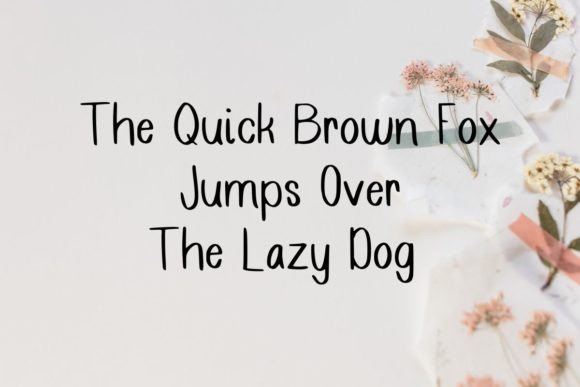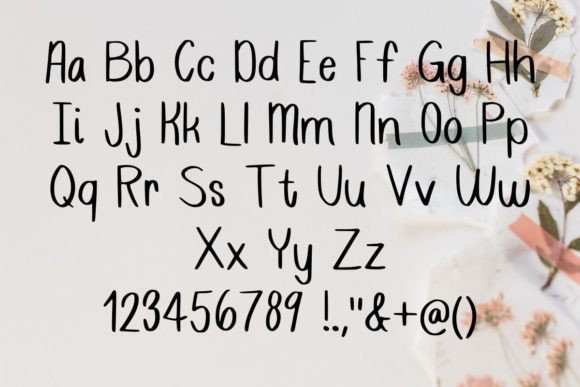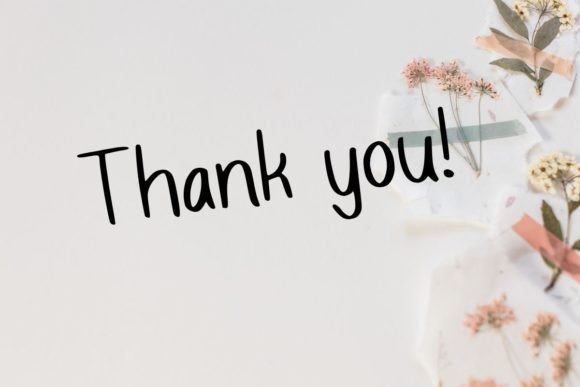
Have you ever stared at a blank canvas or screen, searching for the perfect font to bring your idea to life? It’s that moment when your creativity is bursting, but the right words just won’t come together. Well, say hello to a game-changer: the Humpity Bumpity Font.
This fun and quirky font is designed to add a touch of whimsy to your designs. With its playful humps and bumps, the Humpity Bumpity Font is the perfect choice for anyone looking to add some personality to their creative projects. Whether you’re a seasoned designer or just starting out, this font is sure to bring a smile to your face and make your work stand out from the crowd.
Humpity Bumpity Font Key Features
- Font Family: Humpity Bumpity is a sans-serif font family, designed to provide a unique and playful look for digital and print media.
- Character Set: Includes a wide range of characters, including Latin, Cyrillic, and Greek alphabets, as well as punctuation and special symbols.
- Font Size and Resolution: Designed to work well at font sizes ranging from 10px to 48px, with optimal results at 24px and 96 dpi resolution.
- Unique Characteristics: Distinctive bump-like shapes on letterforms, creating a visually appealing and attention-grabbing effect.
Humpity Bumpity Font Review
As a designer, I was initially drawn to Humpity Bumpity Font for its playful and whimsical feel. The font’s unique letterforms and quirky character combinations ✨ make it a great choice for projects that require a touch of personality.
Some of the font’s strengths include:
- Highly legible even at small sizes ✨
- Great for use in illustrations, graphics, and other visual content ✨
- Supports a wide range of languages, including many non-Latin scripts ✨
- Not suitable for formal or professional applications ⚠️
- Lack of bold and italic font weights ⚠️
- May not be suitable for projects requiring a high level of precision or technical detail ⚠️
Overall, Humpity Bumpity Font is a fun and creative option that’s perfect for projects where you want to add a touch of whimsy. While it may not be suitable for every application, it’s a great choice for designers looking to add some personality to their work.
Humpity Bumpity Font Practical Application Guide
The Humpity Bumpity Font is ideal for:
- Creativity and imagination-driven projects.
- Playful and whimsical designs.
- Children’s educational materials.
To get the most out of the Humpity Bumpity Font, try:
- Combining it with bold or italic styles for added emphasis.
- Using it in conjunction with other playful fonts for a unique look.
- Experimenting with different font sizes and colors
Alternatives to Humpity Bumpity Font
Cursive Script
Cursive Script is a classic, elegant font perfect for adding a touch of sophistication to wedding invitations, certificates, or formal letterheads. It is ideal for creating a sense of formality and tradition. Unlike Humpity Bumpity Font, which is playful and whimsical, Cursive Script is more refined and polished.
Playfair Display is an elegant, high-end font ideal for luxury branding, high-end fashion, or fine dining. It is perfect for creating a sense of luxury and sophistication. While Humpity Bumpity Font is fun and playful, Playfair Display is more formal and luxurious.
Great Vibes is a beautiful, elegant font perfect for creating a sense of warmth and hospitality. It is ideal for restaurant menus, hotel branding, or spa websites. Unlike Humpity Bumpity Font, which is quirky and offbeat, Great Vibes is more refined and sophisticated.
Lobster is a bold, playful font perfect for creating a sense of fun and energy. It is ideal for social media branding, advertisements, or entertainment websites. While Humpity Bumpity Font is quirky and offbeat, Lobster is more bold and attention-grabbing.
Creative Project Ideas Using Humpity Bumpity Font
Project 1: Whimsical Quote Art
Create a set of quote art prints using the Humpity Bumpity Font. This playful font is perfect for adding a touch of whimsy to inspirational quotes.